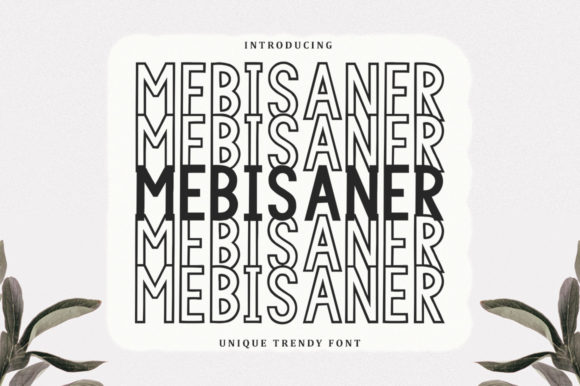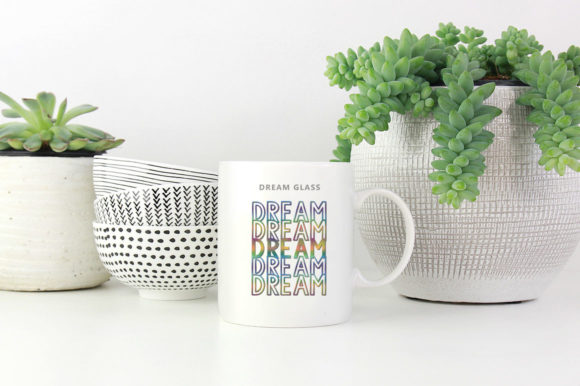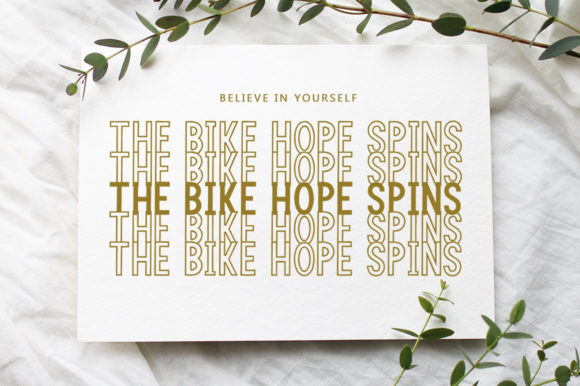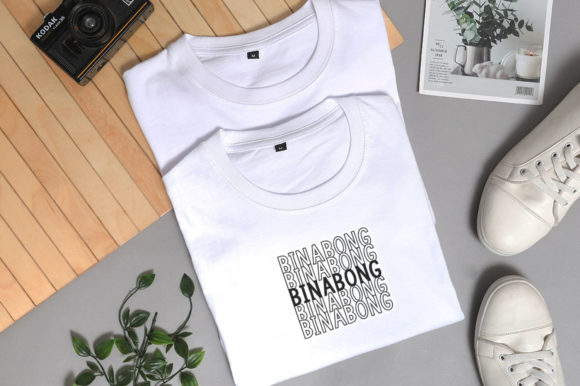
Mebisaner Font
About the Mebisaner Font
Presenting Mebisaner Font, a unique and stylish typeface that will make your work stand out. Mebisaner is a fun stacked font that’s perfect for all your designs!
Mebisaner will save you a lot of time creating your own stack/mirror designs!
Mebisaner’s playful stacked design excels in short, impactful headlines, logos, and packaging where its unique structure commands attention. It’s ideal for projects needing a bold, memorable visual identity, such as children’s products, playful brands, or event posters. Avoid using it for body text or long paragraphs; its stacked nature hinders readability in extended use.
Mebisaner’s core personality is undeniably bold and fun, lending itself well to projects that demand a memorable and slightly quirky visual presence.